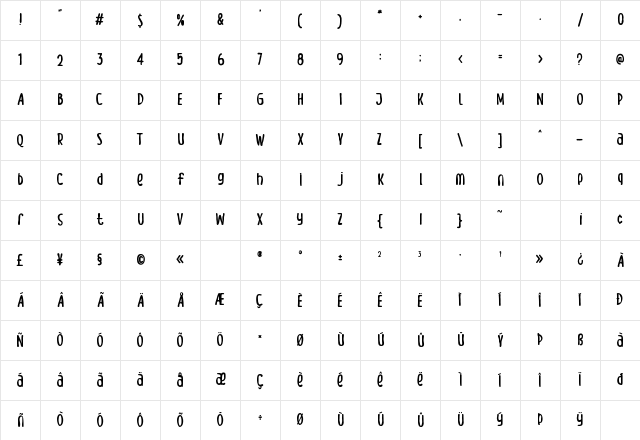
Meow Zilla Regular Free Font
Meow Zilla Regular
Foundry: Putracetol Studio, Karanganyar.
Designer: Putra Novembria Candra Kusuma
Complete Meow Zilla Regular glyph index. Displaying only characters natively supported by Meow Zilla Regular font.
Design Context for Meow Zilla
Meow Zilla is a composed and adaptable typeface that performs quietly and consistently across a wide range of design contexts.